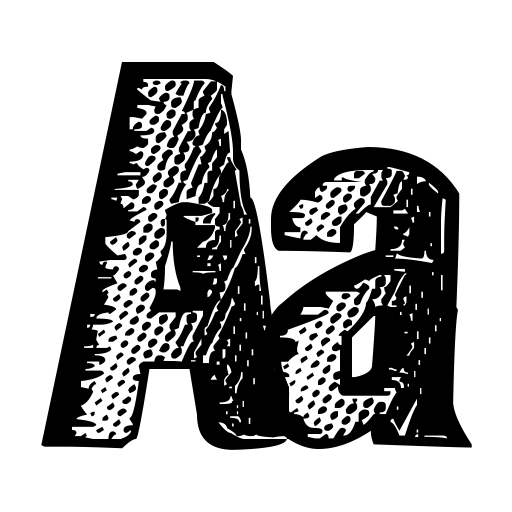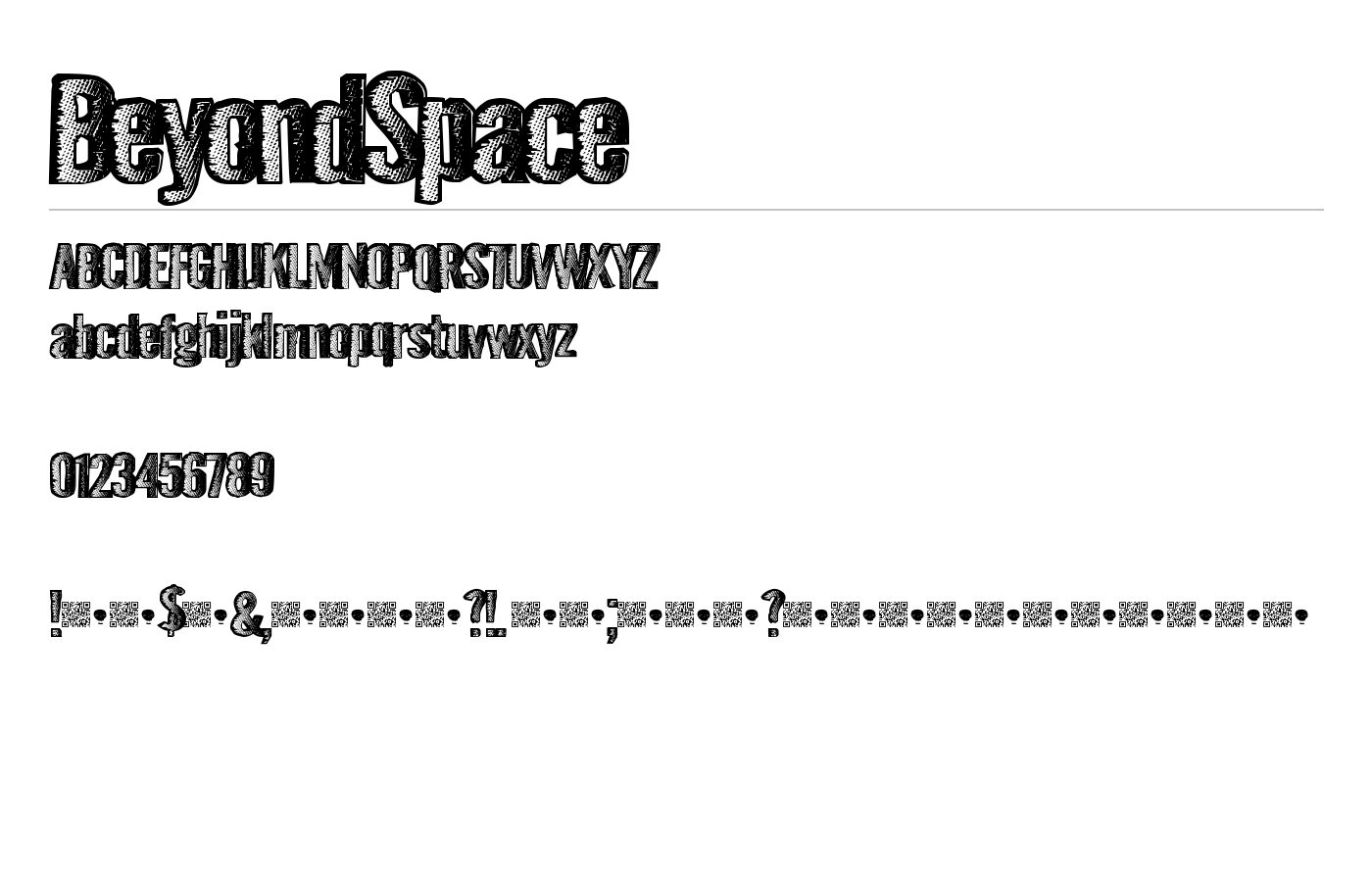
BeyondSpace is a bold, condensed sans serif font with a distinctive textured, shaded effect that gives it a dynamic, almost three-dimensional look. Its strong, uppercase-heavy style with gritty details conveys an energetic and urban vibe, making it ideal for attention-grabbing headlines, posters, or branding projects that aim to stand out with a modern yet edgy personality. This font works best in display uses where its unique texture can shine and add a creative, industrial feel to designs.
BeyondSpace Font
About BeyondSpace Font
| Font family | BeyondSpace Font |
| Designer | Max Infeld - Xerographer |